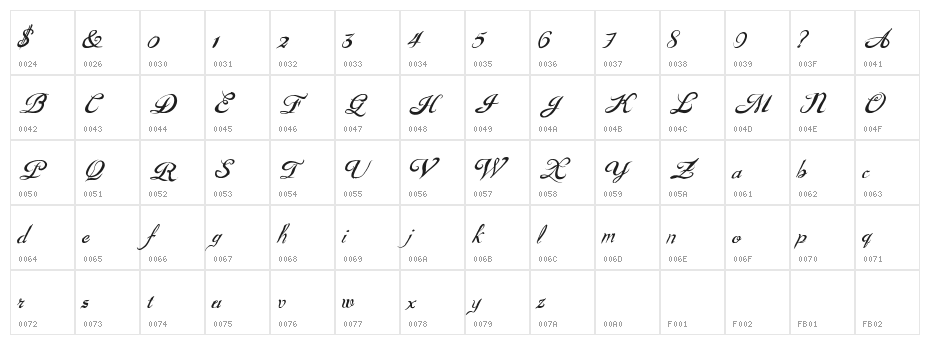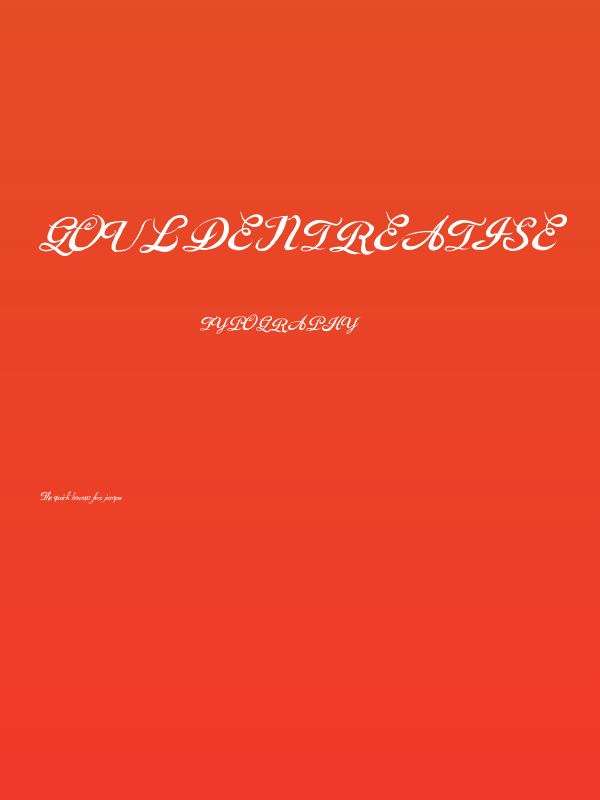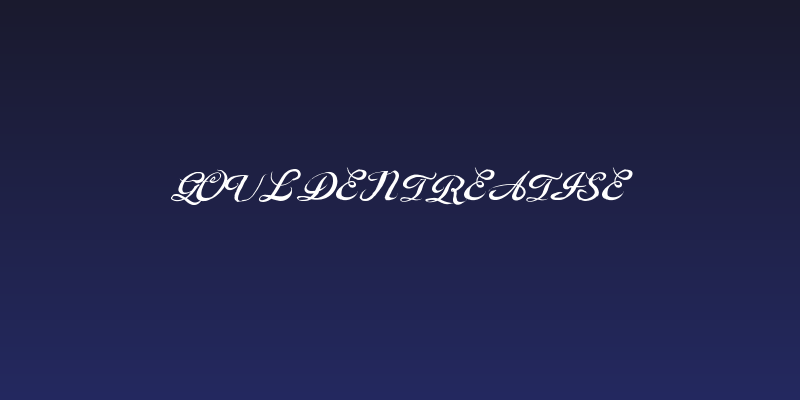
GouldenTreatise Font
GouldenTreatise Description
This font exudes elegance and sophistication with its flowing, cursive style. The characters are intricately designed, featuring elaborate swirls and flourishes that give it a distinct, ornamental appearance. The uppercase letters are particularly grand, with exaggerated loops and curves that create a sense of movement and grace. The lowercase letters maintain this decorative style, though they are slightly more restrained, allowing for readability while still maintaining an artistic flair. The numerals are consistent with the overall design, featuring similar embellishments. This font is perfect for projects that require a touch of class and artistry.
| Proposed Projects | Ideal for wedding invitations, luxury branding, and artistic posters. |